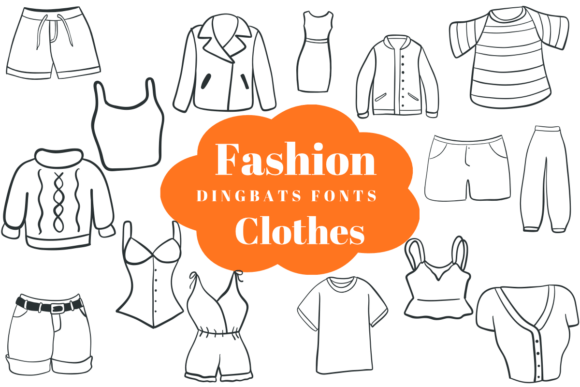
Unlock Your Fashion Dreams with the Perfect Font
You’ve spent hours sketching the perfect design, from the intricate details to the bold color palette. But sometimes, that’s just the beginning – bringing your concept to life requires a lot more than just a pencil and paper. That’s where the Fashion Clothes Font comes in, a game-changing collection of hand-drawn apparel icons designed to elevate your designs and take them to the next level.
This comprehensive library of minimalist line-art icons is perfect for designers, bloggers, and boutique owners looking to add a touch of personality to their brand. With the Fashion Clothes Font, you can easily create size charts, clothing care labels, social media stickers, and fashion-themed logos that will set you apart from the crowd.
From casual basics to stylish outerwear, this font has everything you need to bring your fashion concepts to life. With its trendy, approachable feel, the Fashion Clothes Font is a must-have for any fashion designer looking to make a statement.
Fashion Clothes Font Key Features
- Font Family: Fashion Clothes Font is a unique, hand-drawn font designed specifically for fashion and clothing-related content. It features 100 glyphs, including letters, numbers, and special characters.
- Character Set: The font includes a wide range of characters, including accented letters, punctuation marks, and currency symbols, making it suitable for international fashion brands.
- Unique Characteristics: Fashion Clothes Font features a distinctive, hand-drawn style with subtle texture and imperfections, giving it a high-end, boutique feel that sets it apart from other fonts.
Fashion Clothes Font Review
Overall, I’d say Fashion Clothes Font is a decent addition to any designer’s toolkit. Here are some things that work well: ✨
- The font is trendy and fashionable, perfect for clothing brands and fashion magazines.
- The font is highly customizable, allowing designers to adjust the size, color, and style to fit their needs.
- The font is also quite versatile, suitable for both digital and print media.
However, there are some limitations that I’ve encountered: ⚠️
- The font can be a bit too flashy for more conservative designs, so be careful not to overdo it.
- The font doesn’t include any additional icons or graphics, which can be a drawback for designers who need a more comprehensive font set.
Overall, I’d give Fashion Clothes Font 3.5 out of 5 stars. It’s a solid choice for designers who need a fashionable font, but it’s not without its limitations. With some careful planning and customization, it can be a great addition to any design project.
The Fashion Clothes Font is ideal for:
– Creating fashion-forward designs for clothing labels, tags, and packaging.
– Designing fashion magazines, catalogs, and brochures.
– Developing e-commerce websites for fashion brands.
– Creating social media graphics and advertisements for fashion brands.
– Experiment with different font sizes, colors, and styles to create a unique look.
– Use the Fashion Clothes Font in combination with other design elements to create a cohesive brand identity.
– Adjust the font’s opacity and transparency to create a layered look.
– Use the font to create a sense of hierarchy and visual interest in your design.